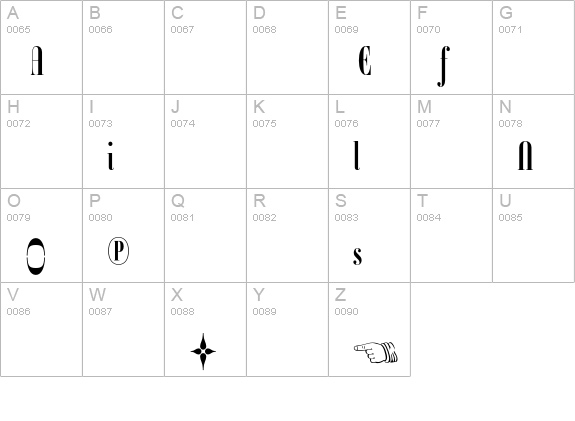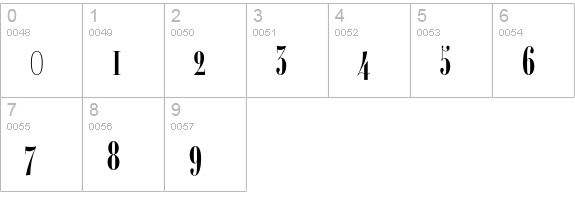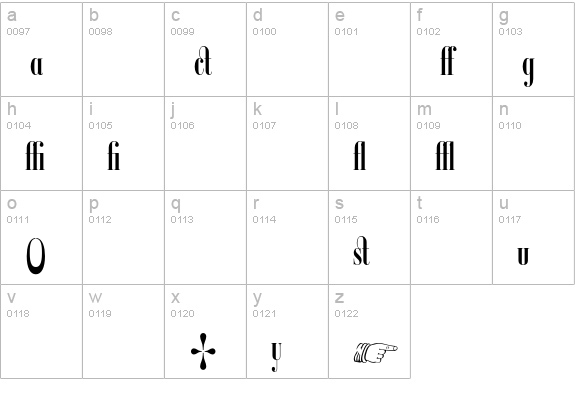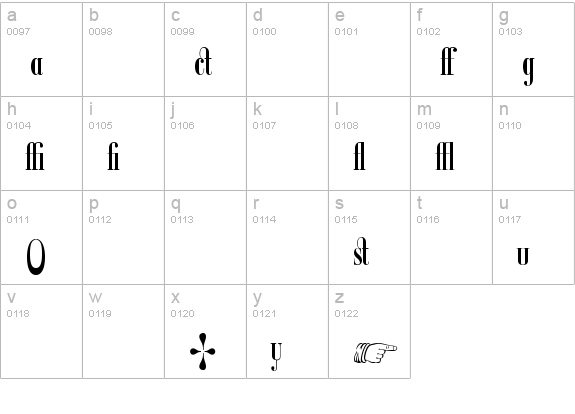
Ambroise Francois Alternates Demi is a sub-bold, structured variant in the Ambroise typeface family \xE2\x80\x94 well suited to sub-headlines and emphasised passages.
Ambroise Francois Alternates Demi font is a sophisticated and elegant typeface that exudes a sense of timeless beauty and charm. Its intricate curves and distinctive letterforms make it a perfect choice for projects that require a touch of refinement and sophistication. The alternates and ligatures in this font add a unique flair, allowing for endless creative possibilities. What makes Ambroise Francois Alternates Demi font even more appealing is that it is freely available to download at FontsMarket.com. This means that you can easily access this stunning typeface without any cost, making it a fantastic option for designers and creatives looking to enhance their projects with a touch of luxury and style. Don't miss out on the opportunity to elevate your designs with this exquisite font that is both visually striking and versatile.